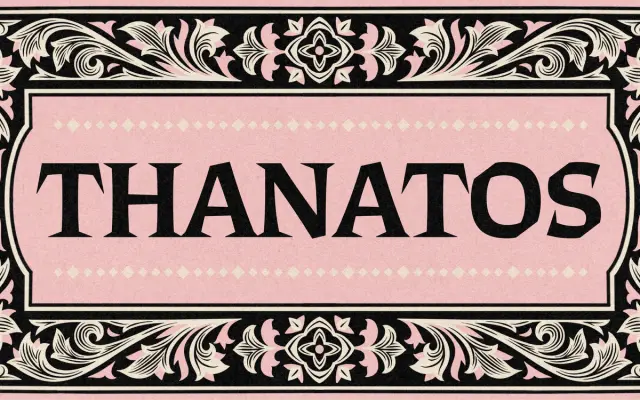
Thanatos
A sharp-cornered serif in eight weights and three optical sizes, drawing on calligraphy and woodcut craft for a typeface that balances character with genuine usability.
Two years in the making, Thanatos runs across 48 styles combining eight weights with Text, Deck and Display optical sizes, each in Roman and Italic. Its knife-like serifs, broken counterforms and subtly concave stems trace a lineage to Berthold Wolpe's Albertus, though the result reads as craftsmanship and solidity rather than ornament or horror. The Text cut widens forms and reinforces stroke connections for smaller settings, while the Display cut preserves the family's delicate, incisive character at larger sizes.
A sharp-cornered serif with calligraphic and woodcut origins, knife-like serifs and broken counterforms place it firmly in the display serif tradition, though its three optical sizes extend usability down to text settings.